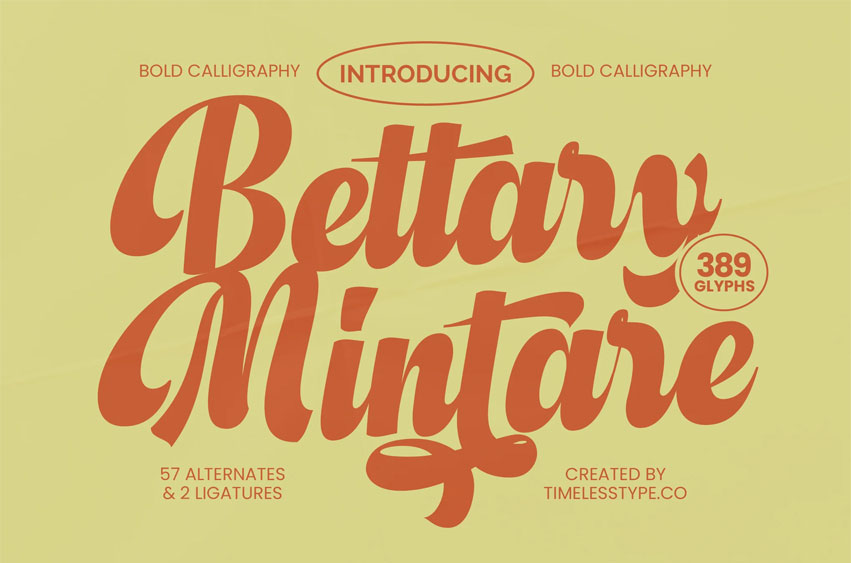
Bettary Mintare Font
Bettary Mintare Font is a bold calligraphy script font with expressive curves, smooth swashes, and a strong handcrafted rhythm. Its confident brush strokes and stylish retro charm make it perfect for branding, packaging, posters, social media quotes, logotypes, design, and eye-catching headline typography.
The font blends vintage script aesthetics with modern boldness, giving every design a warm, dynamic, and artistic feel. With 57 alternates and 2 ligatures, Bettary Mintare offers wide creative flexibility for crafting unique lettering compositions, expressive titles, and personalized signature-style wordmarks. Its bold presence, flowing structure, and handcrafted texture make it an excellent choice for designers seeking a powerful and elegant brush calligraphy font.